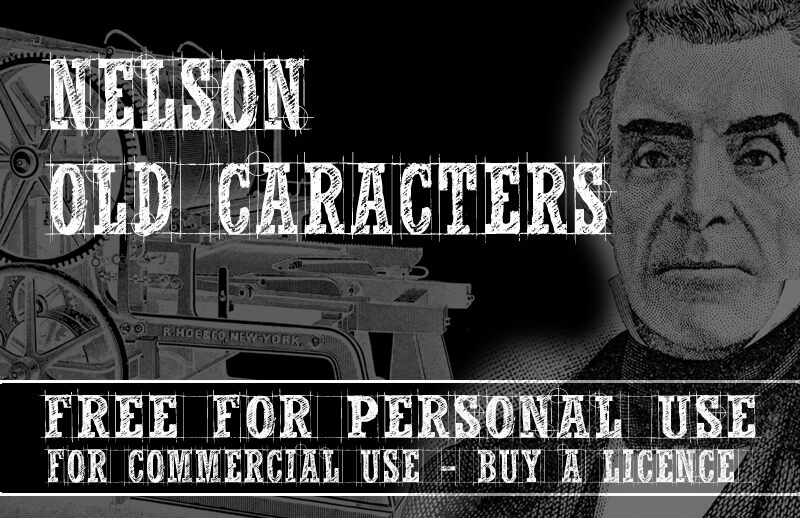
CF Nelson Old Caracters by CloutierFontes is a free eroded display font with the blunt, rugged build of old wood type. Its tall capitals carry heavy slab serifs, uneven edges, and dense patches of scratches that vary across each letter. Narrow joins and rough interior marks make the forms feel printed from battered blocks rather than covered with a uniform digital texture.
Packaging is a natural home for this worn lettering, especially on whiskey labels and heritage food products that benefit from a workshop-made stamp. It also suits concert posters and historical publishing, where the distressed capitals can supply title lettering that feels pulled from a handbill or newspaper advertisement.
CF Nelson Old Caracters
CloutierFontes
Steve Cloutier
CF Nelson Old Caracters Regular is a font by CloutierFontes, designed by Steve Cloutier in 2013.